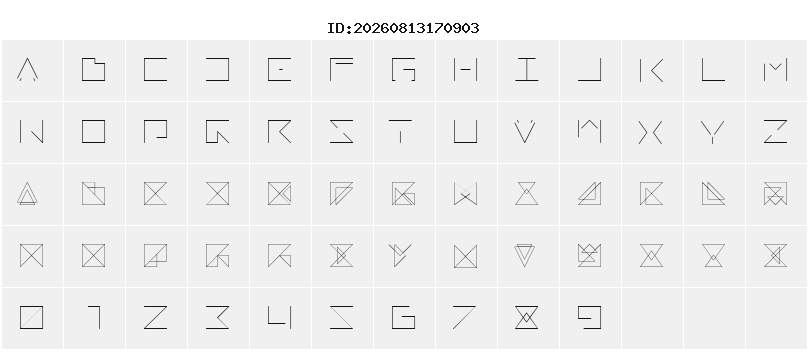
• Font Name: REMARKABLE
• Designer: GR8CIE VEE
About REMARKABLE.ttf
REMARKABLE.ttf is a modern, elegant sans-serif font designed for ultimate readability and visual harmony. Perfect for branding, headlines, web design, and print materials.